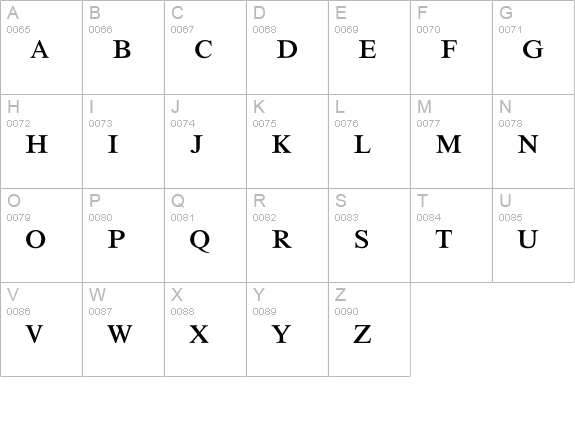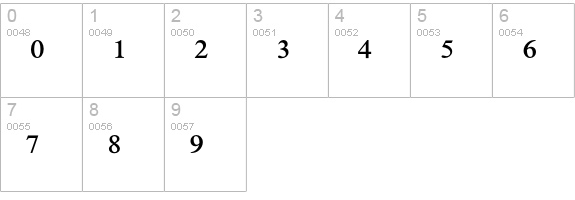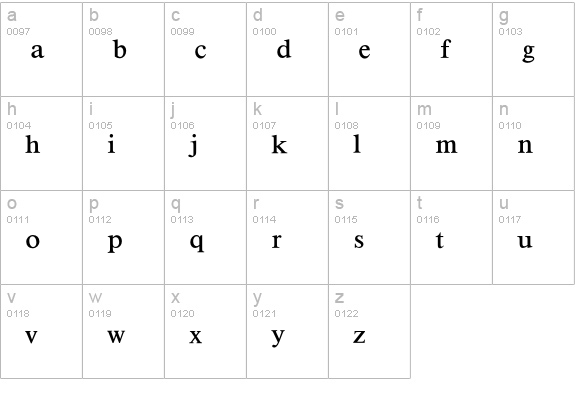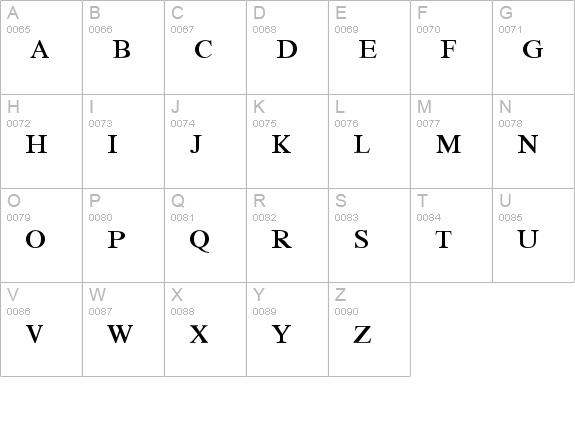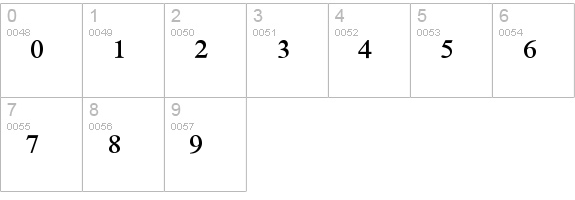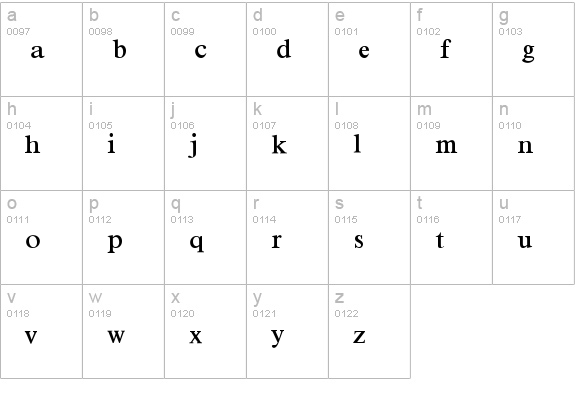
MathTechnicalP15 Font Details
MathTechnicalP15 is a unique and versatile font that combines the precision and elegance of mathematical symbols with a technical edge. With its clean lines and bold strokes, this font is perfect for any project that requires a professional and modern look. Designed with attention to detail, MathTechnicalP15 offers a wide range of mathematical symbols and equations, making it an essential tool for mathematicians, scientists, and educators. Whether you are working on a research paper, creating a presentation, or designing a mathematical textbook, this font will enhance the clarity and readability of your work. One of the best features of MathTechnicalP15 is that it is freely available for download at FontsMarket.com. This means that you can easily access and use this font without any restrictions or costs. It's a great opportunity to add a touch of sophistication to your projects without breaking the bank. The versatility of MathTechnicalP15 extends beyond the realm of mathematics. Its clean and modern design makes it suitable for a wide range of applications, such as graphic design, branding, and advertising. Whether you are creating a logo, designing a poster, or developing a website, this font will bring a professional and polished look to your creations. In addition to its aesthetic appeal, MathTechnicalP15 also offers excellent legibility, even at small sizes. This ensures that your content remains clear and easy to read, no matter the medium or format. Overall, MathTechnicalP15 is a must-have font for anyone who values precision, elegance, and versatility. Its freely available download at FontsMarket.com makes it accessible to everyone, allowing you to elevate your projects with a touch of professionalism and style. So go ahead and enhance your designs with MathTechnicalP15 today!